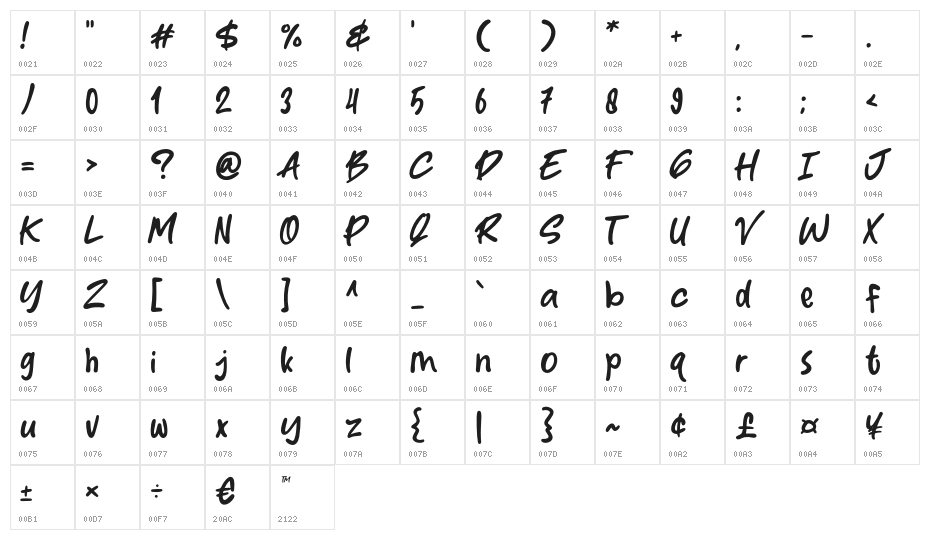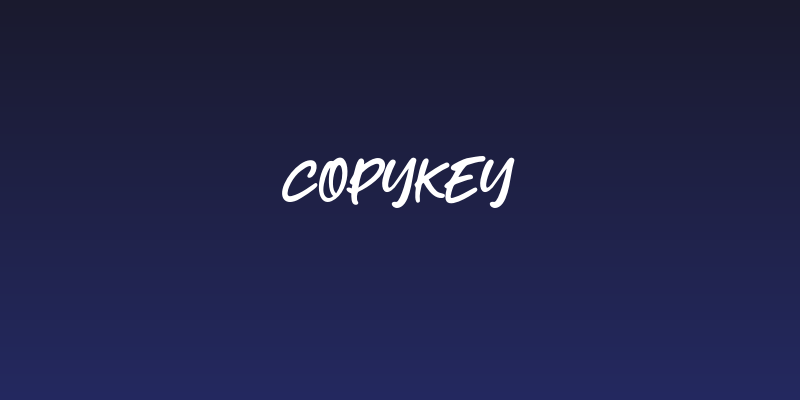
Copykey Font
Copykey Description
This font features a bold, handwritten style with a casual and playful appearance. The characters are slightly slanted, giving a dynamic and energetic feel. The strokes are thick and consistent, contributing to a strong visual presence. The uppercase and lowercase letters maintain a cohesive style, with rounded edges and a smooth flow. Numbers and special characters are designed to match the overall aesthetic, ensuring uniformity across all elements. This font is ideal for projects that require a personal touch or an informal vibe.
| Overall Style | Casual |
| Use Case | Headlines, Logos, Informal Text |
| Proposed Projects | Ideal for greeting cards, invitations, posters, and branding that requires a personal and informal touch. |